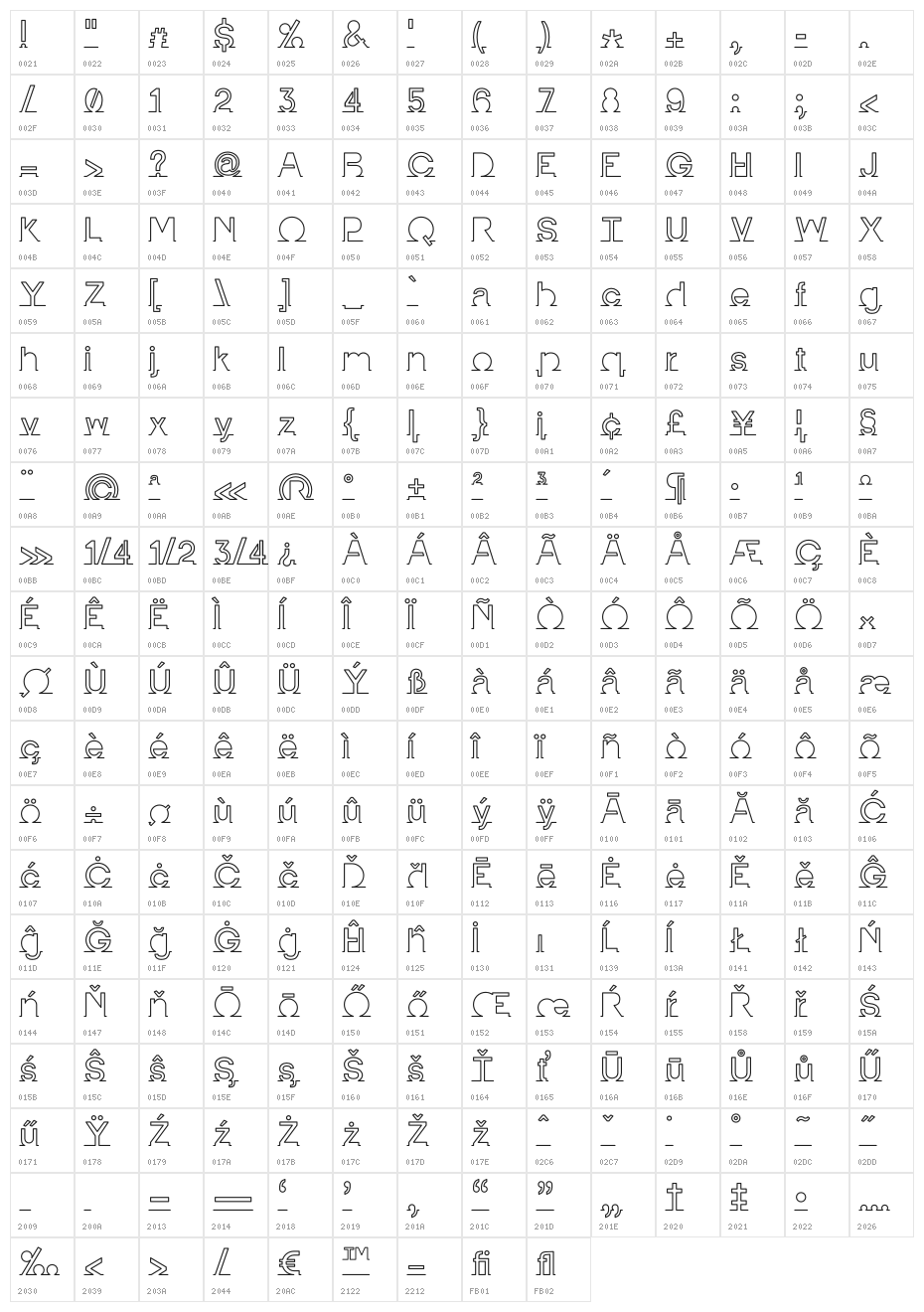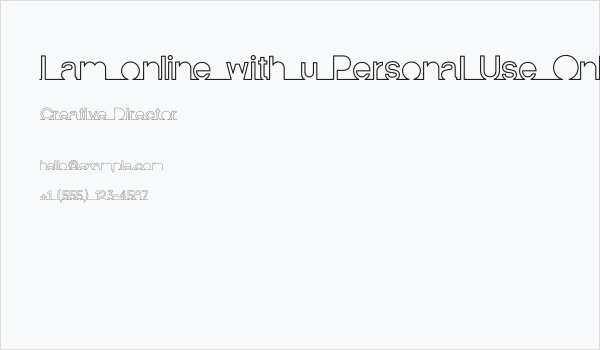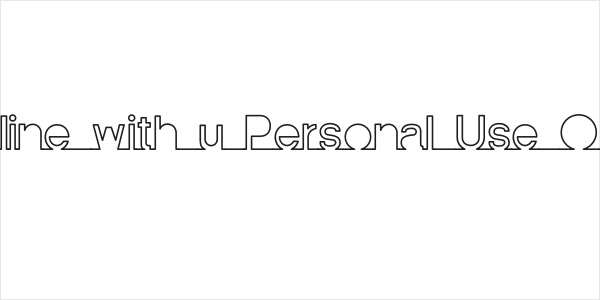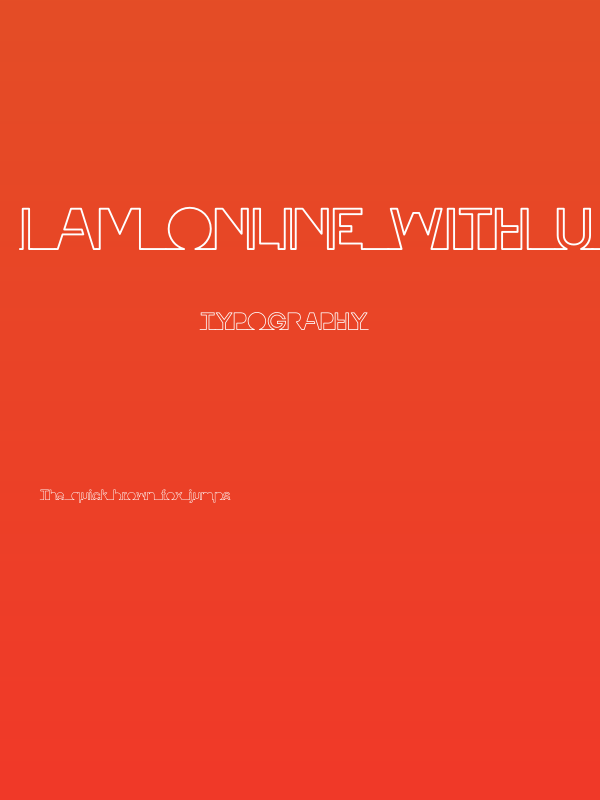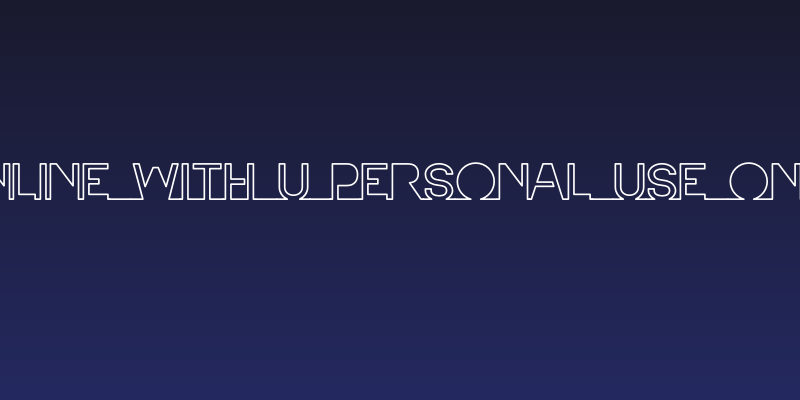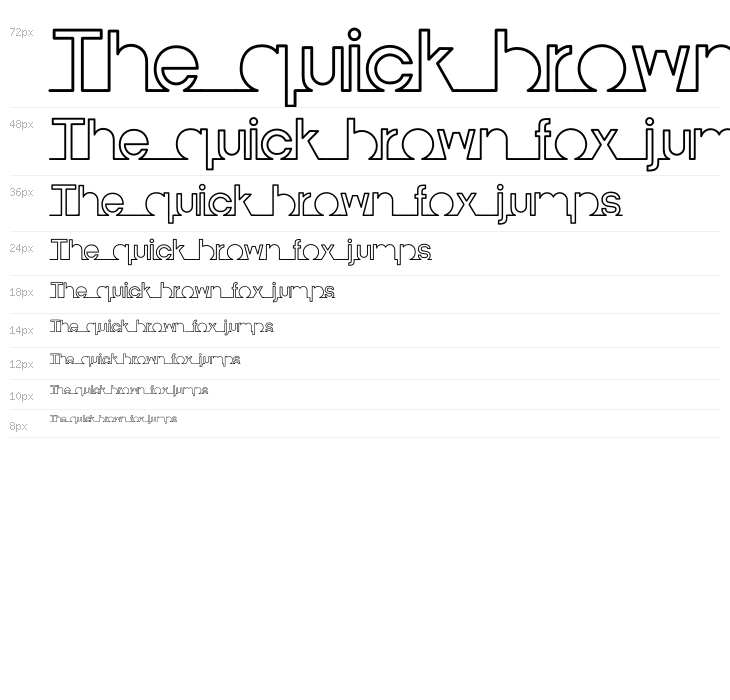
I am online with u Personal Use Only Line Font
I am online with u Personal Use Only Line Description
This font features a modern, geometric design with a distinct outline style. The characters are constructed with clean lines and sharp angles, creating a futuristic and digital aesthetic. Uppercase and lowercase letters maintain a consistent height, while the numerals and special characters complement the overall design. The font's open structure and minimalistic approach make it highly legible, even at smaller sizes. Its unique style is suitable for projects that require a contemporary and tech-savvy appearance.
| Use Case | Headlines, Logos, Digital interfaces |
| Proposed Projects | Ideal for digital interfaces, tech branding, modern posters, and futuristic designs. |